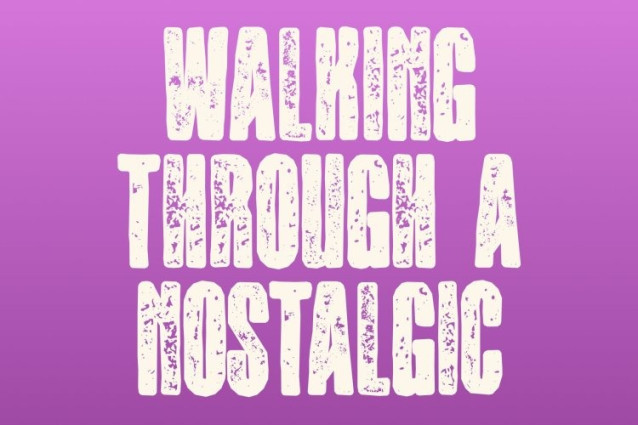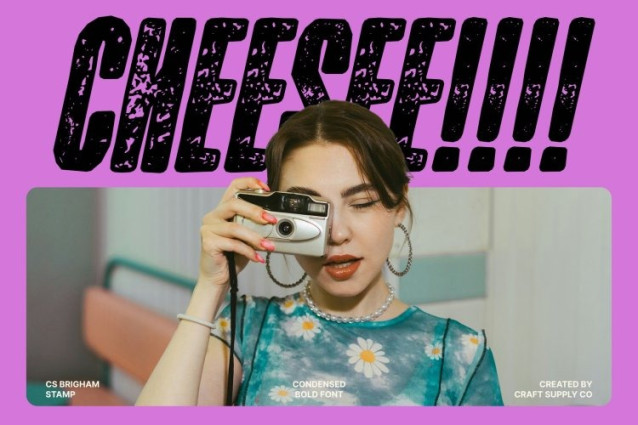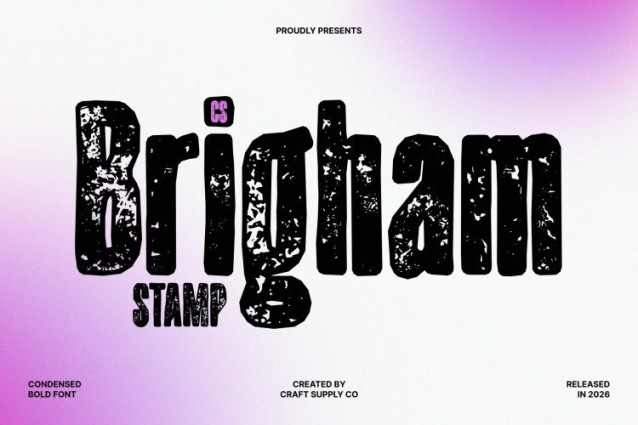
CS Brigham Stamp Font
CS Brigham Stamp Font – This is a modern sans serif font featuring bold, tightly constructed letterforms designed to create a strong and immediate visual impact. Its condensed proportions maximize space efficiency while maintaining clarity and structure, making it an excellent choice for headlines, titles, and high-impact layouts where space and visibility matter most. The stamped texture adds subtle depth, giving the font a distinctive tactile character.
Bold and Minimalist with a Professional Tone
Combining minimalist design with confident weight, delivers a sleek and contemporary presence. Its slim yet powerful strokes communicate professionalism and authority, while the textured stamp effect introduces a slightly raw and expressive dimension. This balance between clean structure and textured detail makes the font both refined and visually engaging.
High Readability with Textured Character
Despite its compact construction, maintains excellent legibility across print and digital applications. The bold forms ensure clarity even at smaller sizes, while the stamped texture enhances visual interest without compromising readability. This makes it suitable for posters, websites, product packaging, and social media graphics.
Perfect for Modern Branding and Visual Communication
Ideal for designers seeking a bold yet minimalist typographic voice, offers a powerful foundation for contemporary design. Its condensed structure, professional tone, and textured character make it perfect for branding, editorial layouts, advertising, and modern visual communication that values simplicity, strength, and personality.